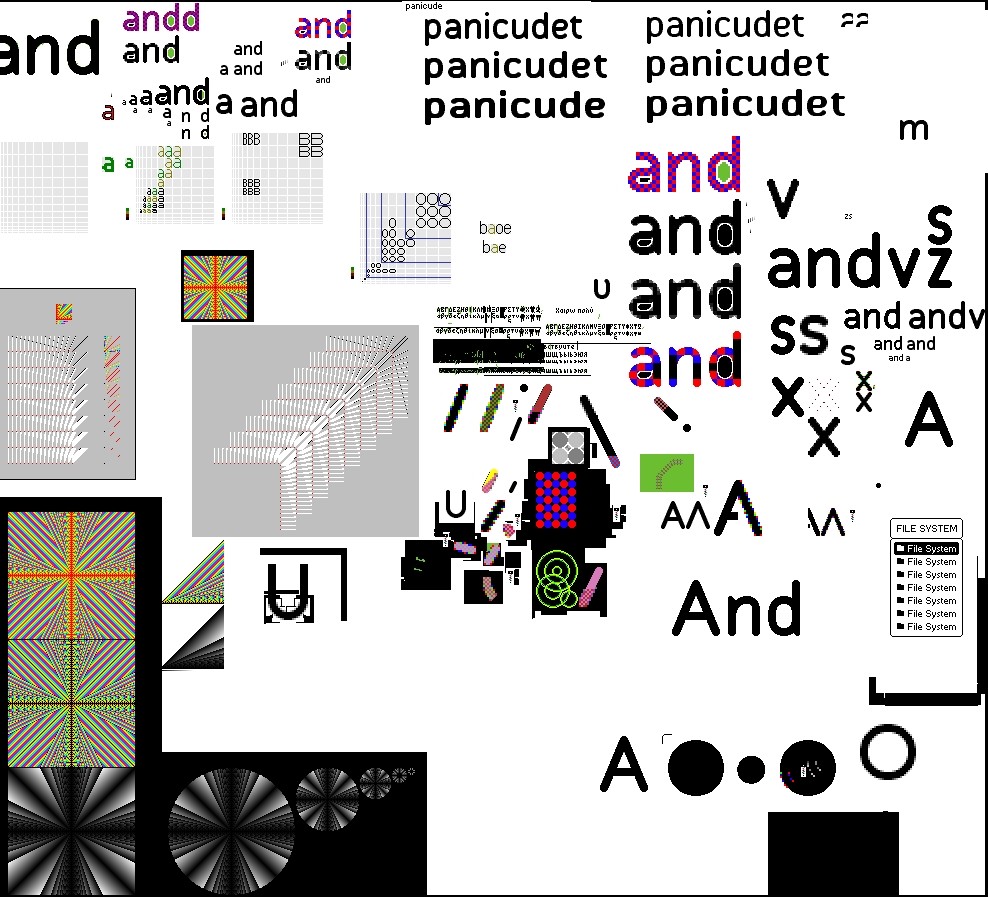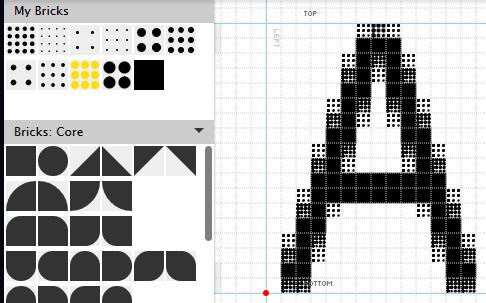
@Dante (Dantemwalt) - This looks like a very interesting project.
This font is pretty nice. Kind of reminds me of the same method that was used to make this font.
You forgot the uppercase W, Dante (Dantemwalt).
@Bryndan W. Meyerholt (BWM) I have a font called 'pixel perfect' that I'm quite fond of. I was wondering how it might look if I up-scaled it to create a font that is highly adaptable to down-scaling. I have to create the glyphs in a separate program called asprite at a higher resolution than seen above, and then assign one of 8 shades of grey depending on the number of black and grey pixels (e.g. 3 black = 75% black; 1 black, 1 grey = 25+12.5 or ~38% black)
@SuperM2229 I haven't added the magiscule 'S' yet either. I'm working to add them, though.
"PQRT"
"TUVX"
real unfinished. wait until the creator of this font finished it.
Guys, capital S and W are now real
This font? Perfectly anti-aliased.
The Cyrillic is almost ready. But it's strange that the lowercase м is different from the uppercase M, maybe it's worth keeping this form for the Monospaced version. Also, the ы bar should be slightly closer, and the left part of the л should be more noticeable, bigger, like the д now. I would even change it to make the д shorter and more symmetrical.
What about making a non-color version? With just differently dense composites to imitate the shades of gray? Hard to judge the real density though, since in browser the countours seem to be bolder than in actual .ttf
italic version of each one